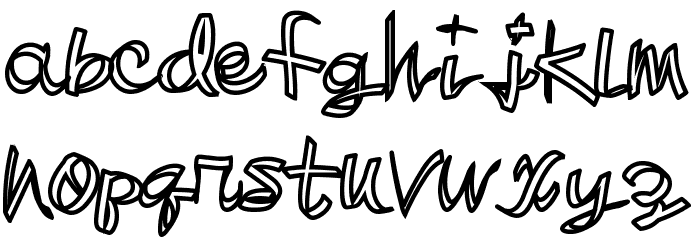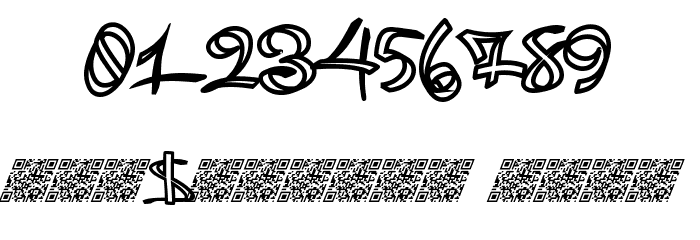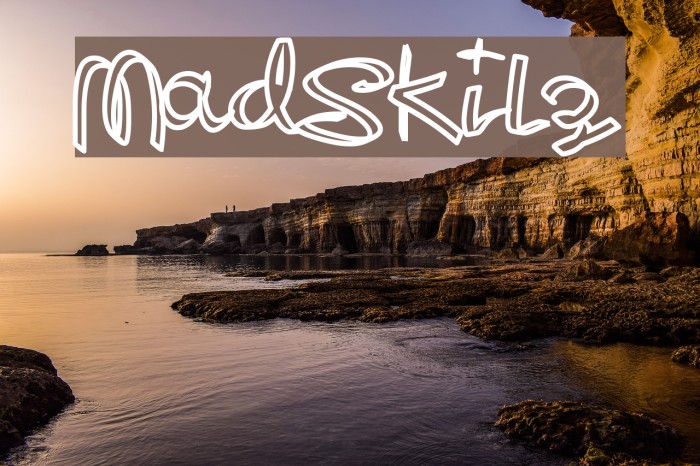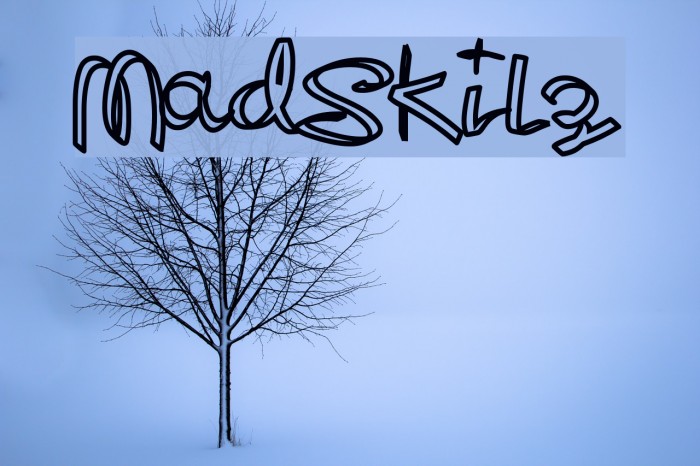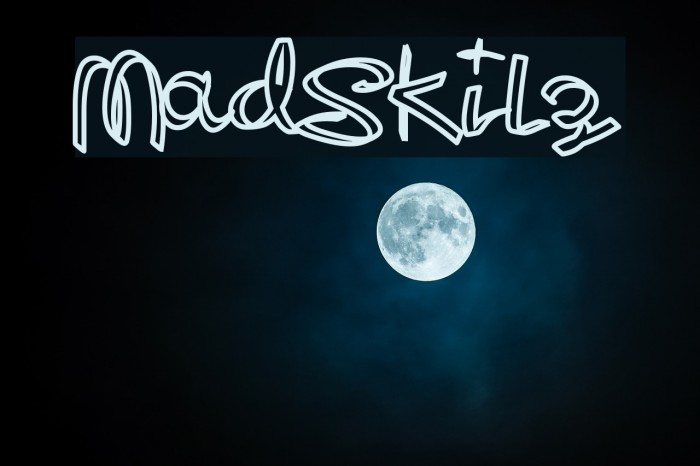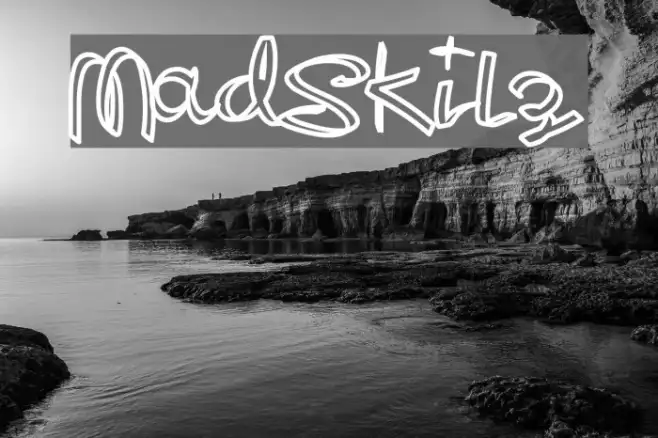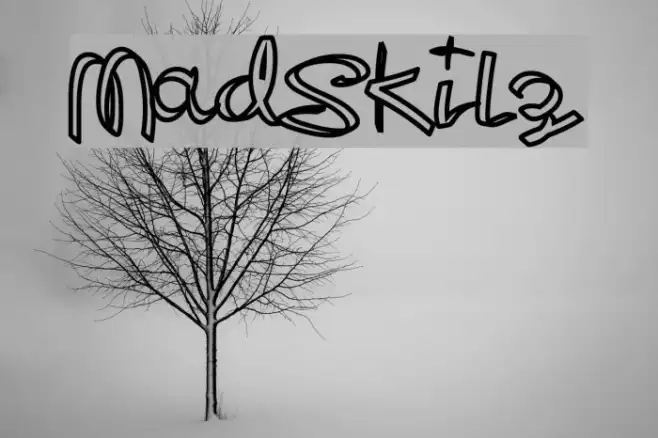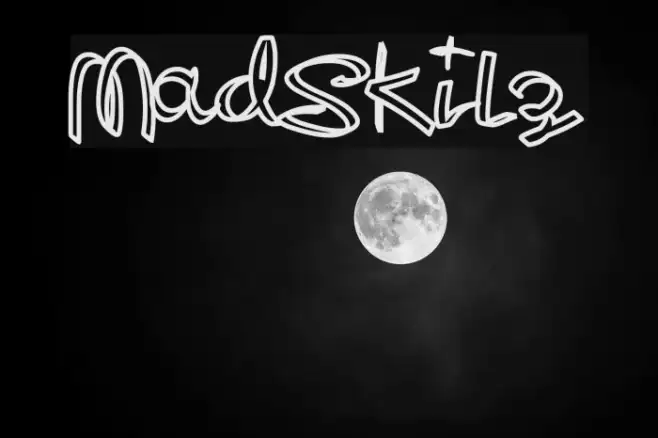
MadSkilz Font
This font features a bold, graffiti-inspired style with a playful and energetic vibe. The characters are outlined with a thick black stroke, giving them a three-dimensional appearance. The uppercase and lowercase letters maintain a consistent style, with exaggerated curves and angles that add to the dynamic look. The numbers and special characters follow the same aesthetic, ensuring a cohesive design throughout. This font is perfect for projects that require a bold and youthful expression, such as street art, urban-themed designs, or creative branding.
A bold, graffiti-inspired font with a playful and energetic style.
- Proposed Projects: Ideal for street art, urban-themed designs, creative branding, and youth-oriented projects.